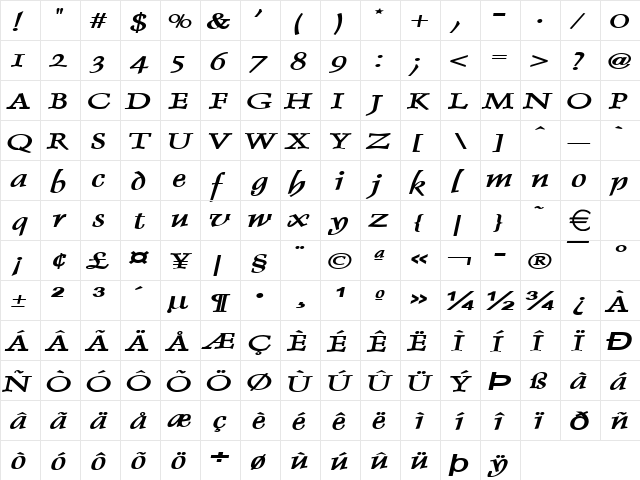
DolphinExtended BoldItalic
Design Context for DolphinExtended Typeface
DolphinExtended is a composed and adaptable typeface that performs quietly and consistently across a wide range of design contexts. Its italic angle brings a sense of urgency and motion to the letterforms. Its bold stroke weight gives it real presence on the page.
Pro Tip: Use DolphinExtended for emphasis, pull quotes, and subheadings where its slanted energy can add rhythm to the layout.